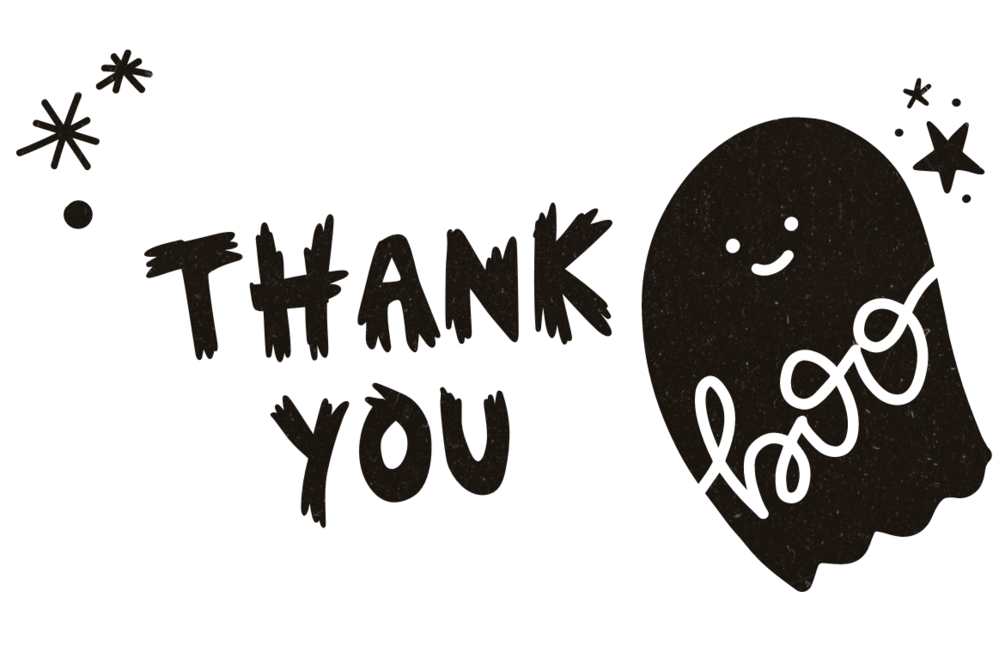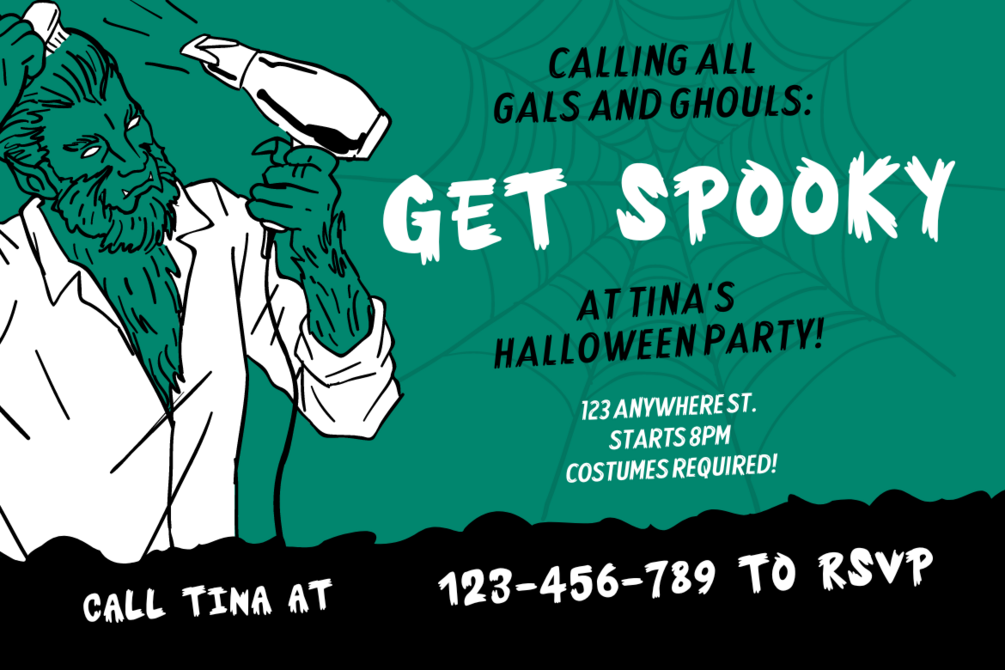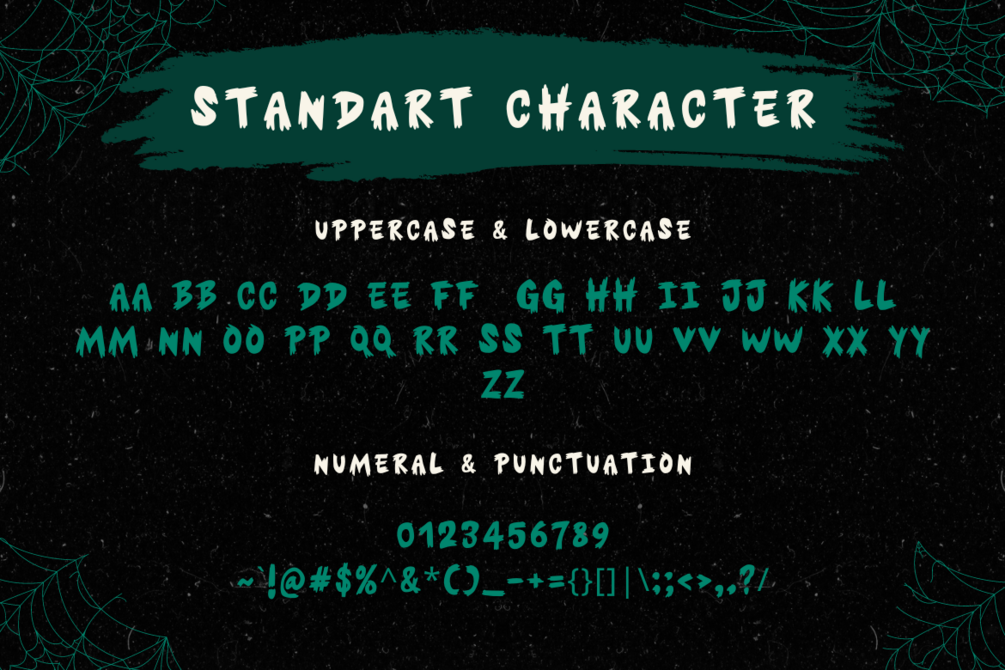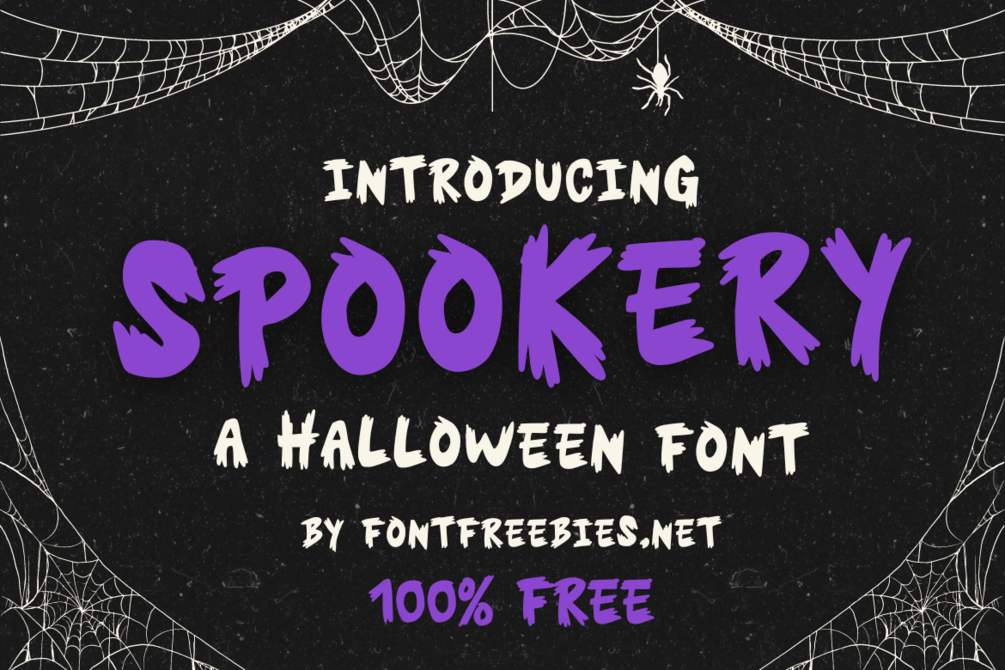
Spookery - A Halloween Font
Spookery is a bold and playful Halloween font that’s perfect for adding a fun yet spooky touch to your designs. Ideal for Halloween party invitations, flyers, and social media posts, Spookery’s jagged, chunky letters bring a quirky, haunted feel to any project.